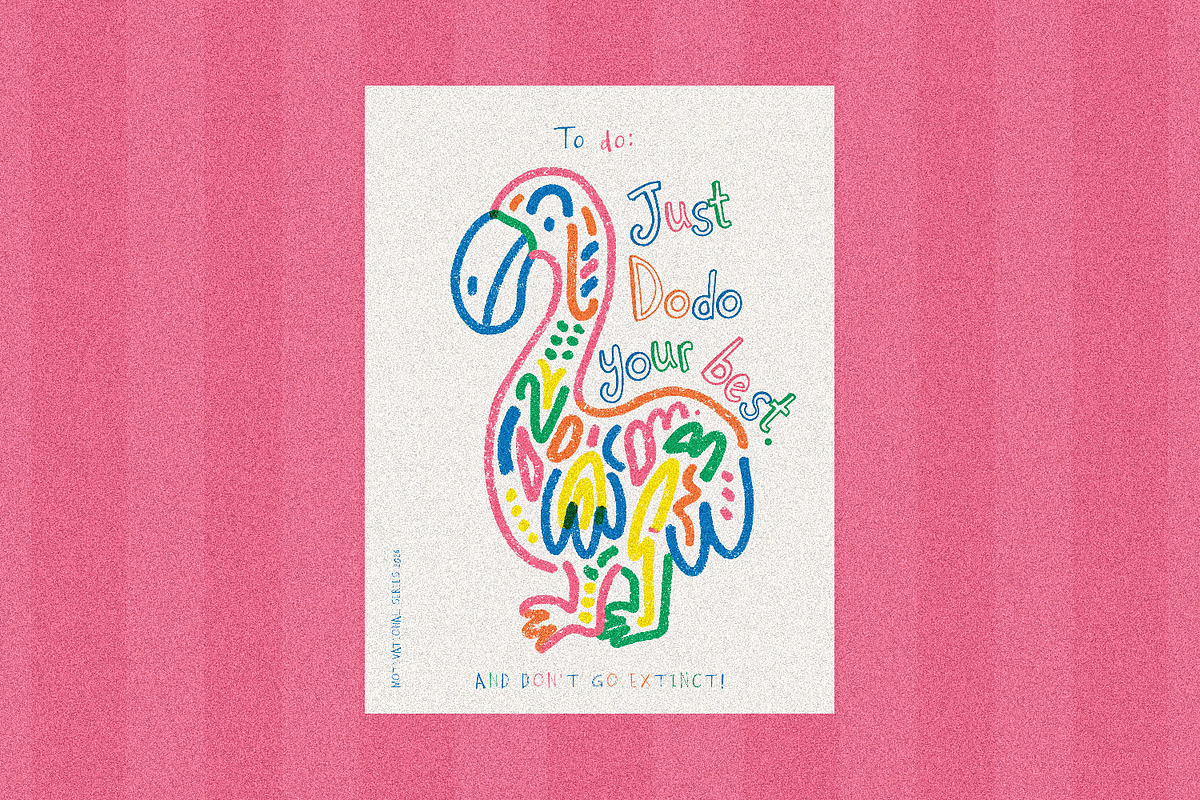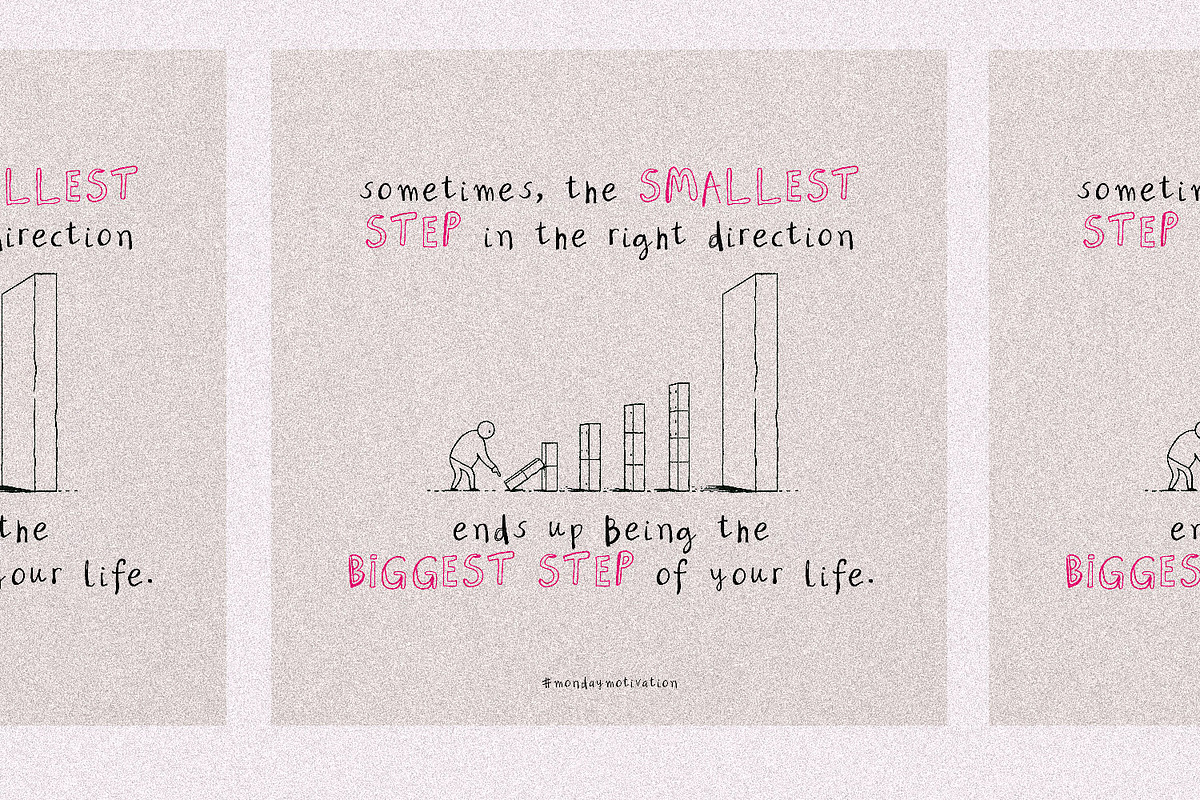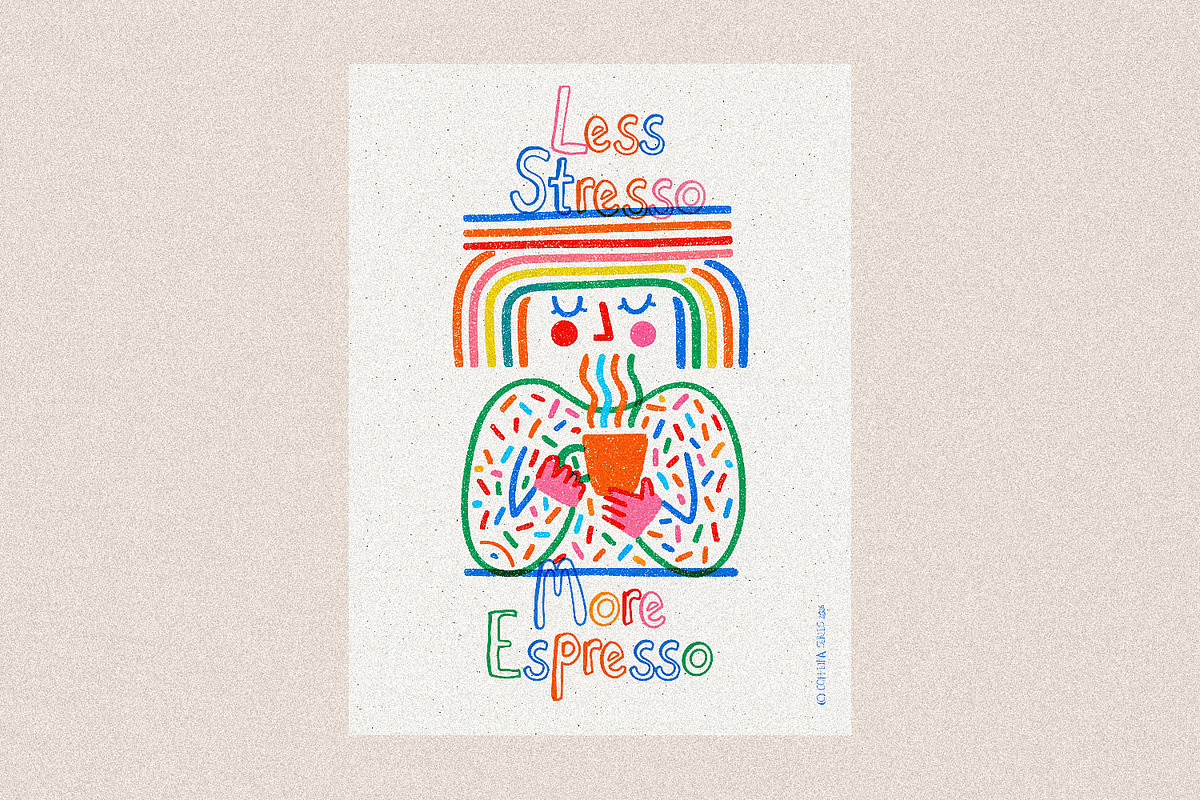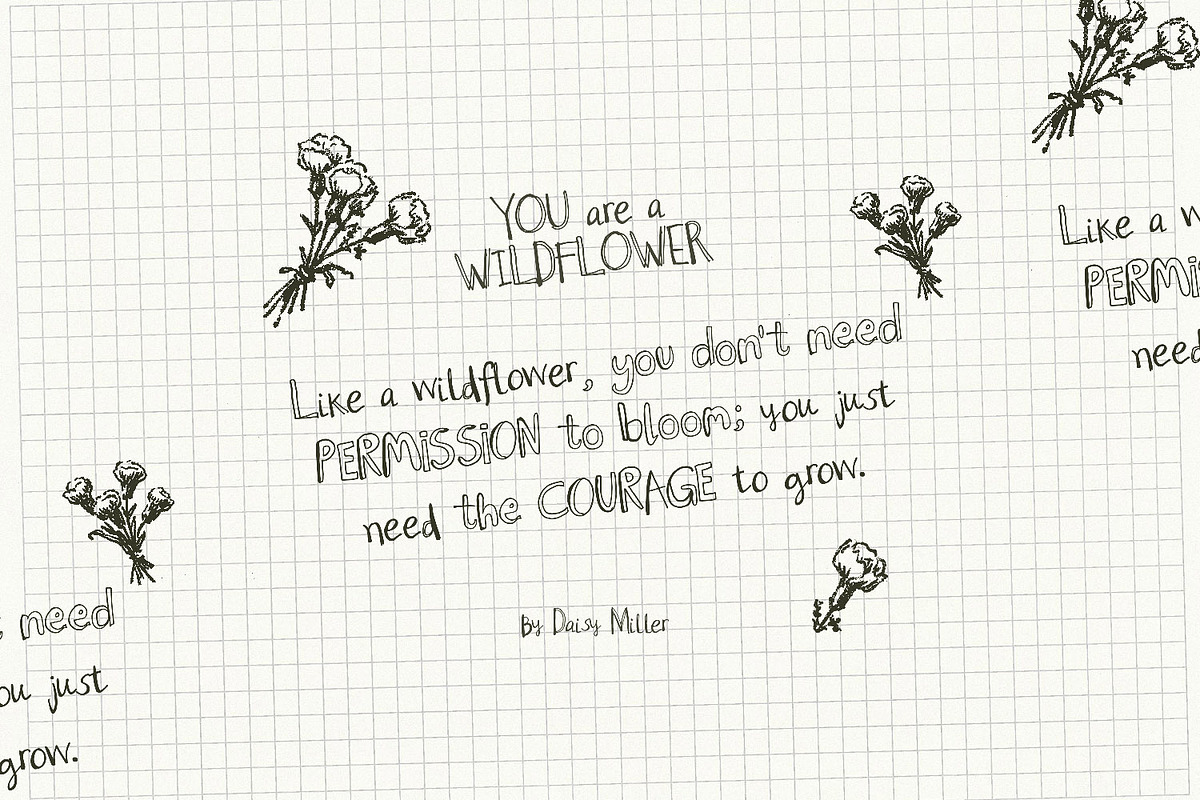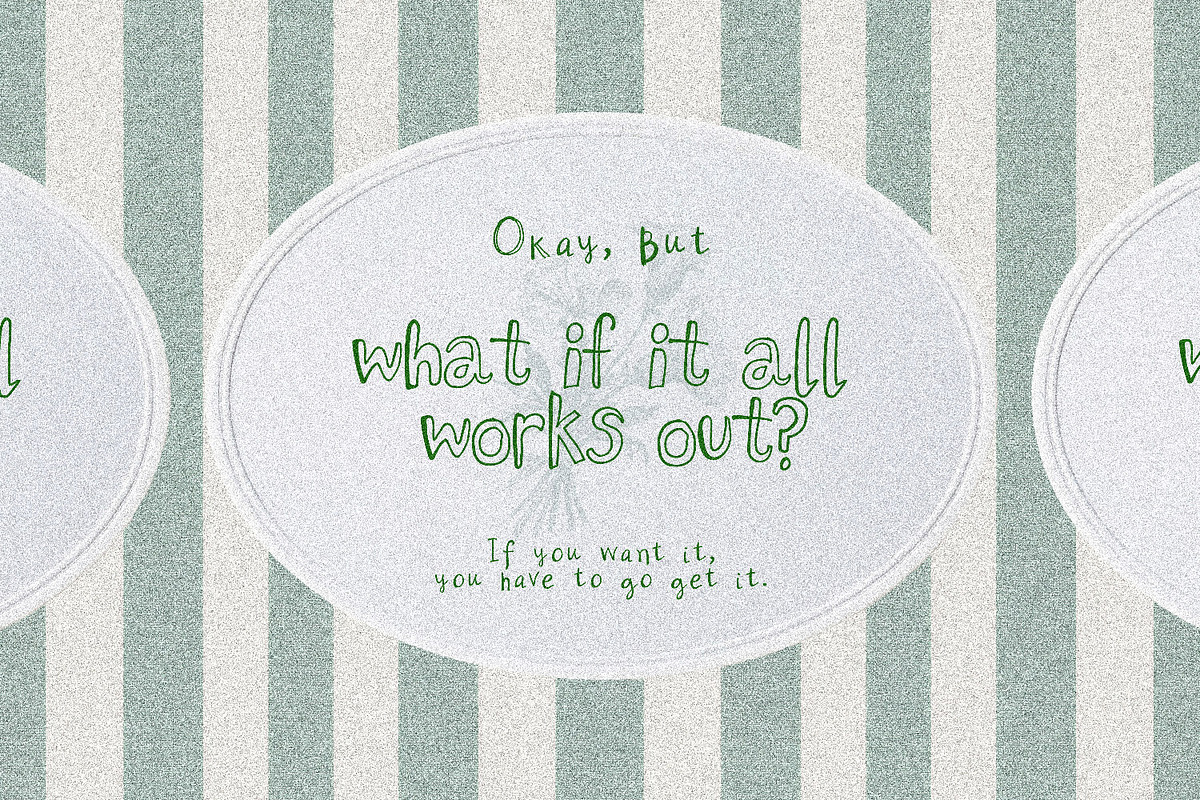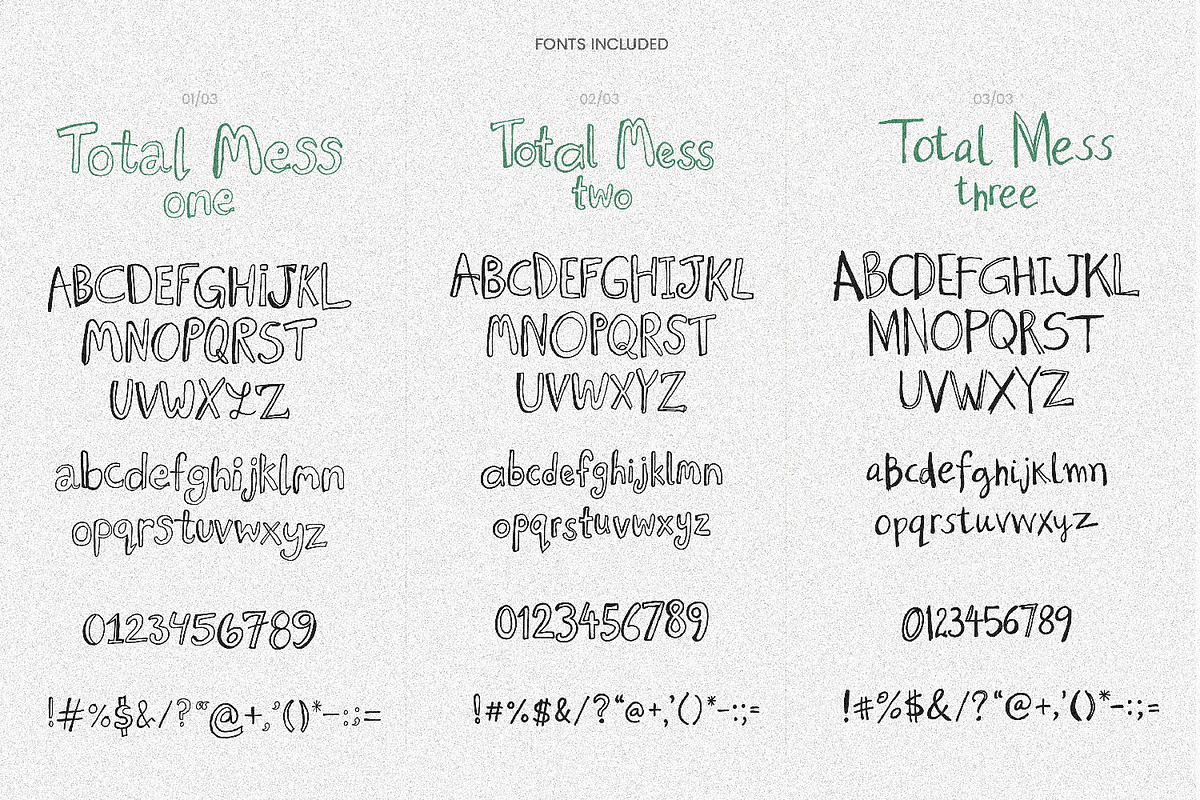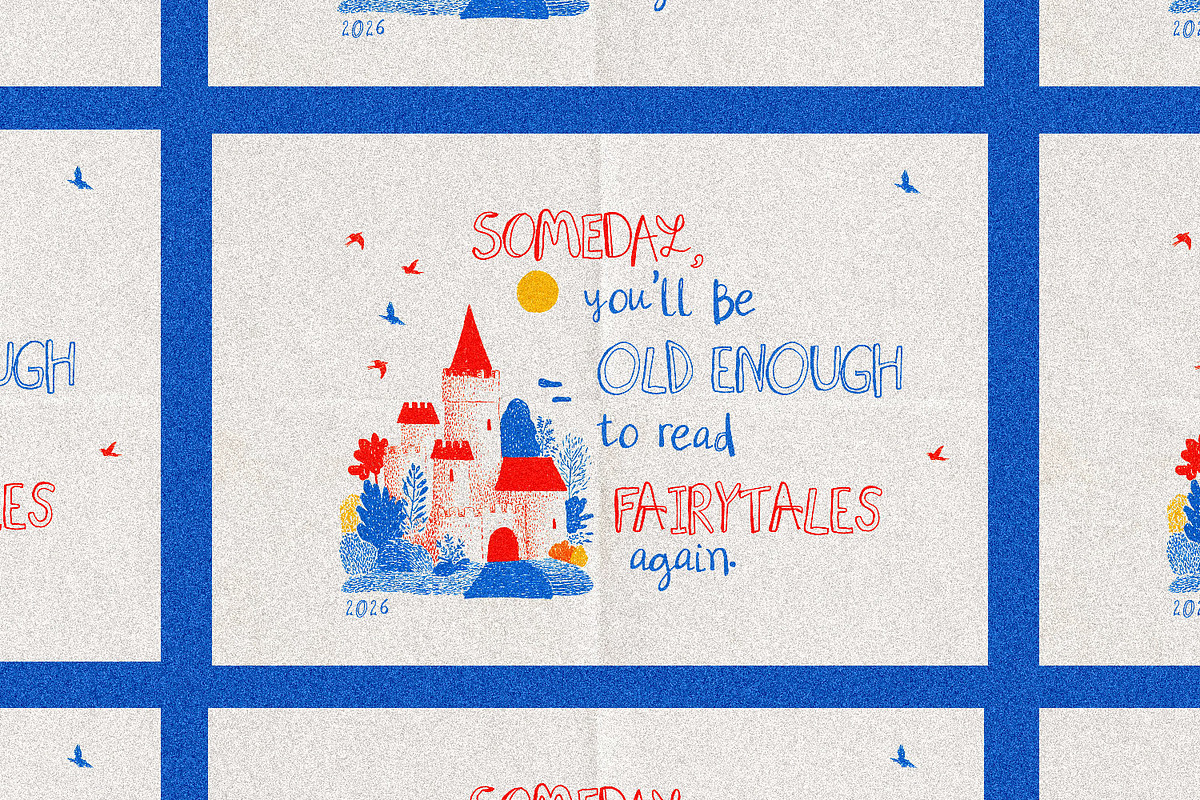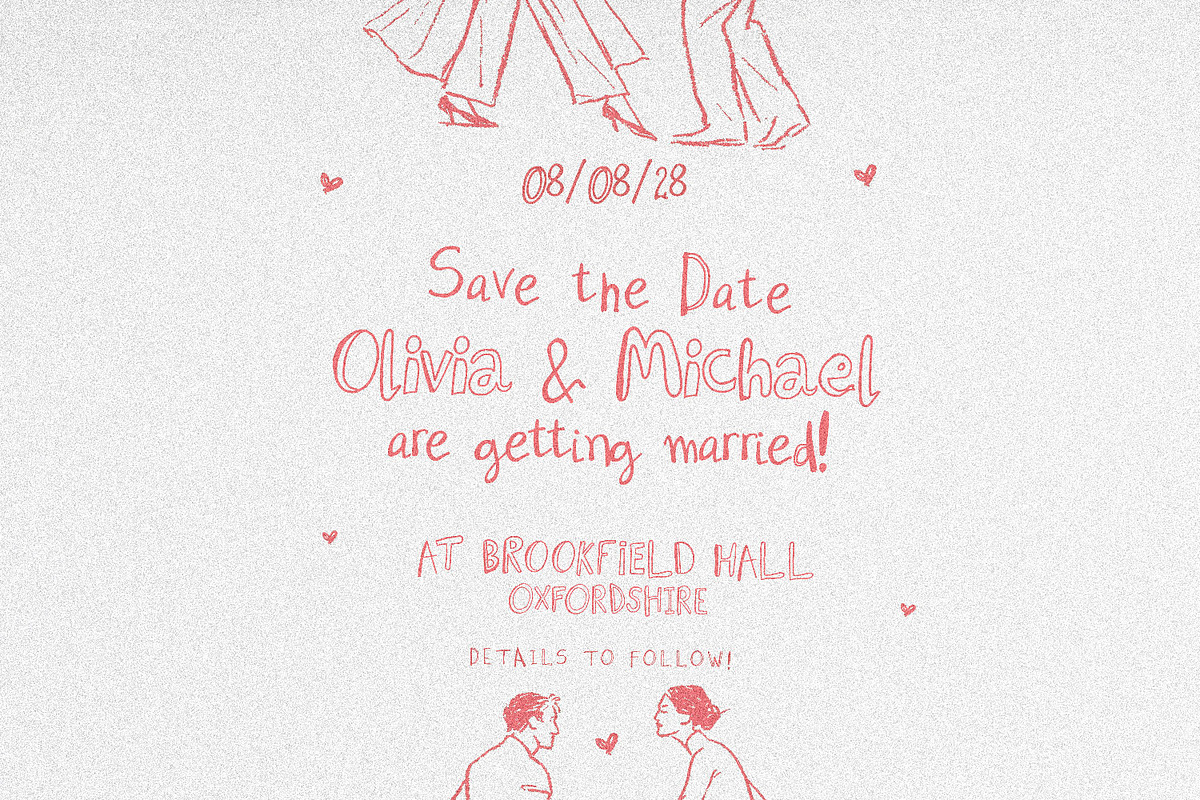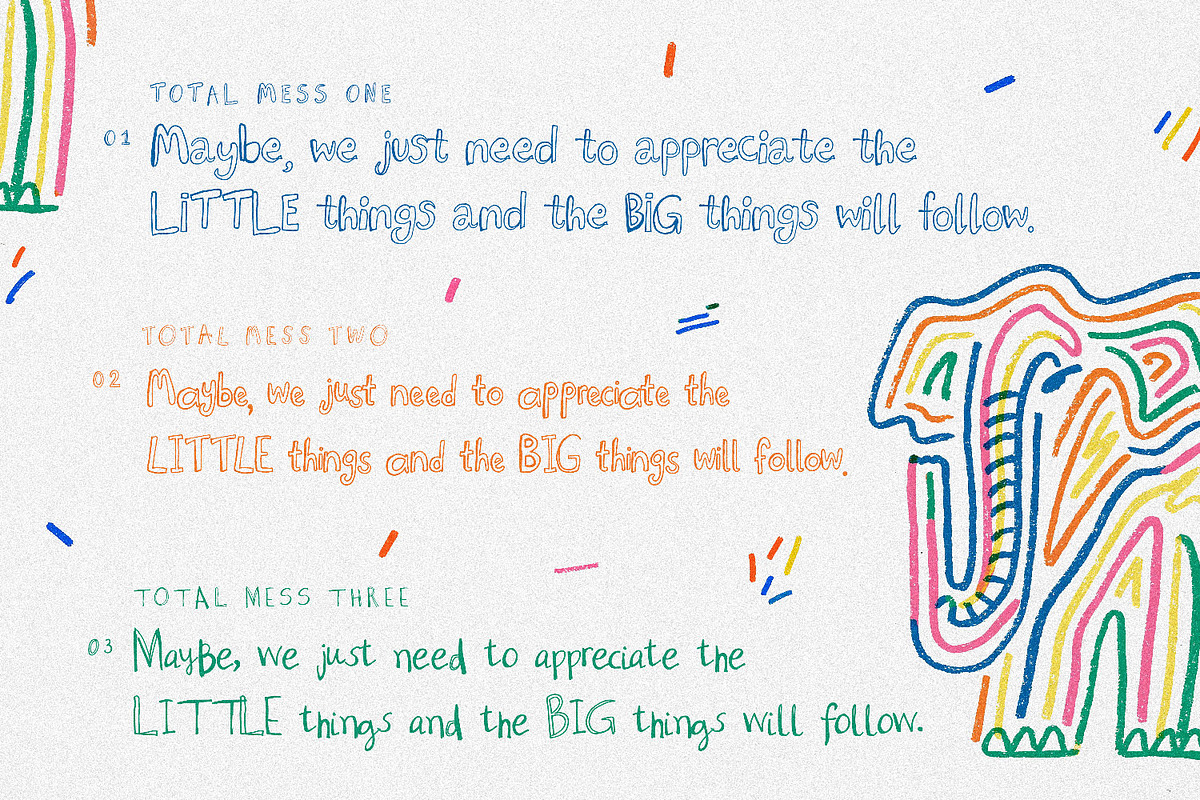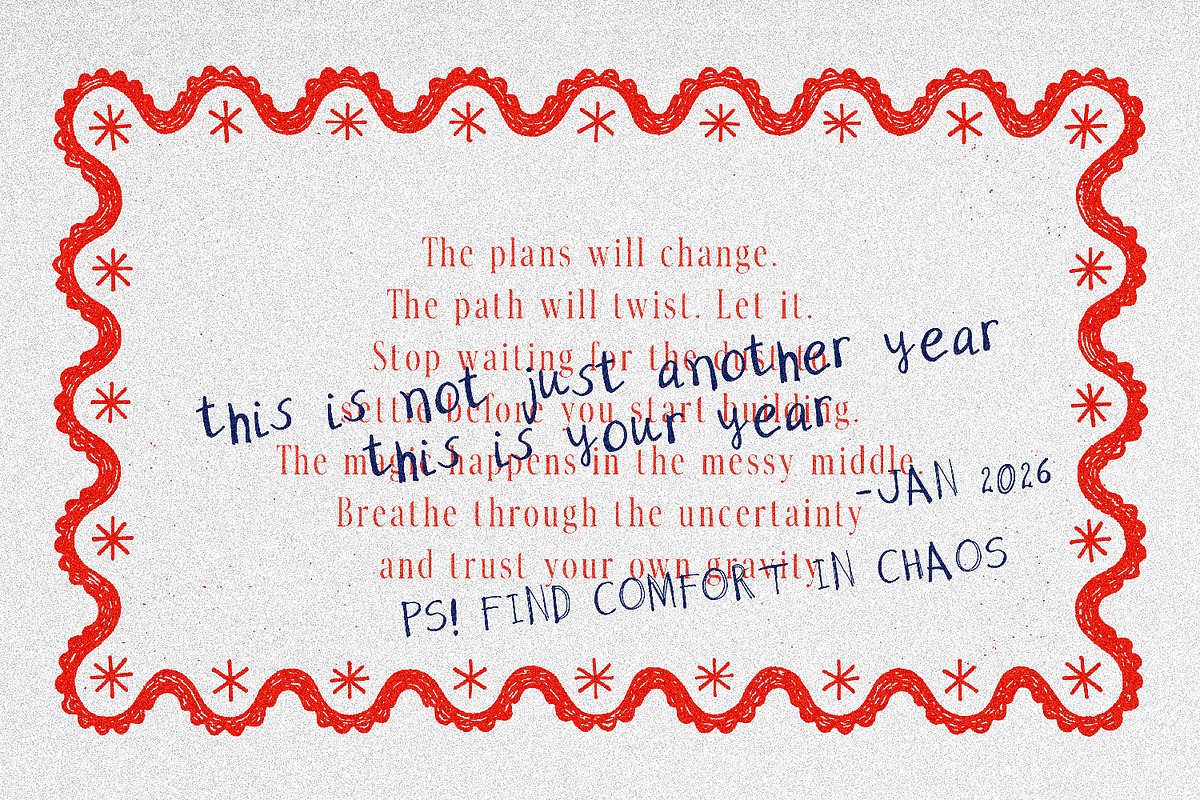
Total Mess - A Quirky Doodle Font
Meet Total Mess, the font that completely embraces the beauty of imperfection. If you are tired of stiff, overly perfect typography and just want something that looks like you doodled it in the margins of your notebook during a long meeting, you’ve found your match.
It’s wonky, it’s playful, and it doesn't take itself too seriously.
PS! It’s actually THREE fonts! To give you the ultimate creative freedom, this download includes three different variations of the font so you can mix, match, and layer to your heart's content. (Perfect for creating that chaotic-but-cute aesthetic!).
Awesome Ways to Use "Total Mess":
Sarcastic Apparel: The absolute best font for funny, relatable quotes on t-shirts, hoodies, and tote bags.
Cricut & Silhouette Crafts: Create quirky mugs, tumblers, and stickers that stand out from the standard script fonts.
Digital Planning & Journaling: Add a fun, authentic hand-drawn touch to your GoodNotes planners, digital diaries, or iPad doodles.
Greeting Cards: Perfect for "just because" cards, funny birthday wishes, or quirky invitations.
Social Media Graphics: Stop the scroll on Instagram and Pinterest with text that looks genuinely hand-lettered and breaks the mold of boring templates.
Teacher Resources: Make worksheets, classroom posters, and bulletin boards look fun and approachable for kids.
Indie Branding: Great for small businesses, craft shops, or artists who want a laid-back, approachable, and creative brand identity.